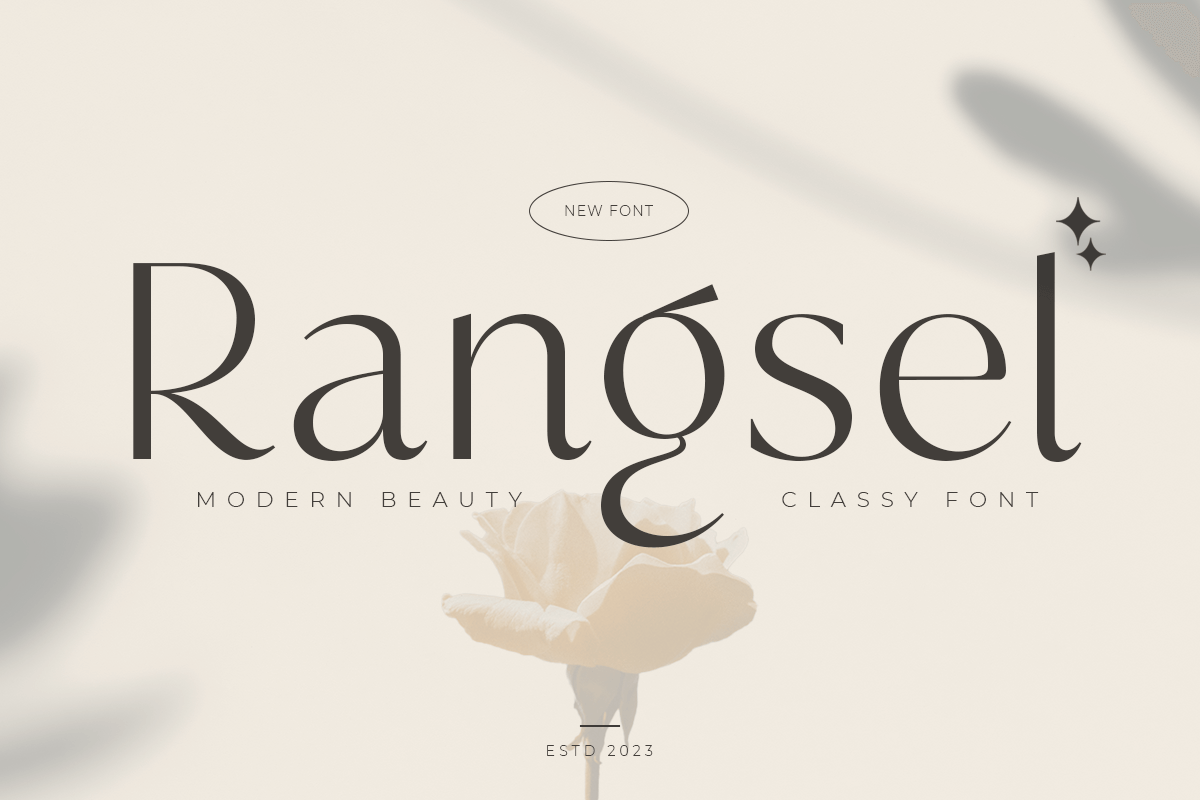
Rangsel
-Modern Beauty Classy Font
Rangsel
A Modern Beauty Classy Font that we created special for elegant branding needs, with extra unique shape will be ready to add value of your brand. It so nice to leverage designer or product owner that need solutions to make their design look more classy and modern. And specially for this font, We prepared any characters to help you create unlimited variations for your creative needs.